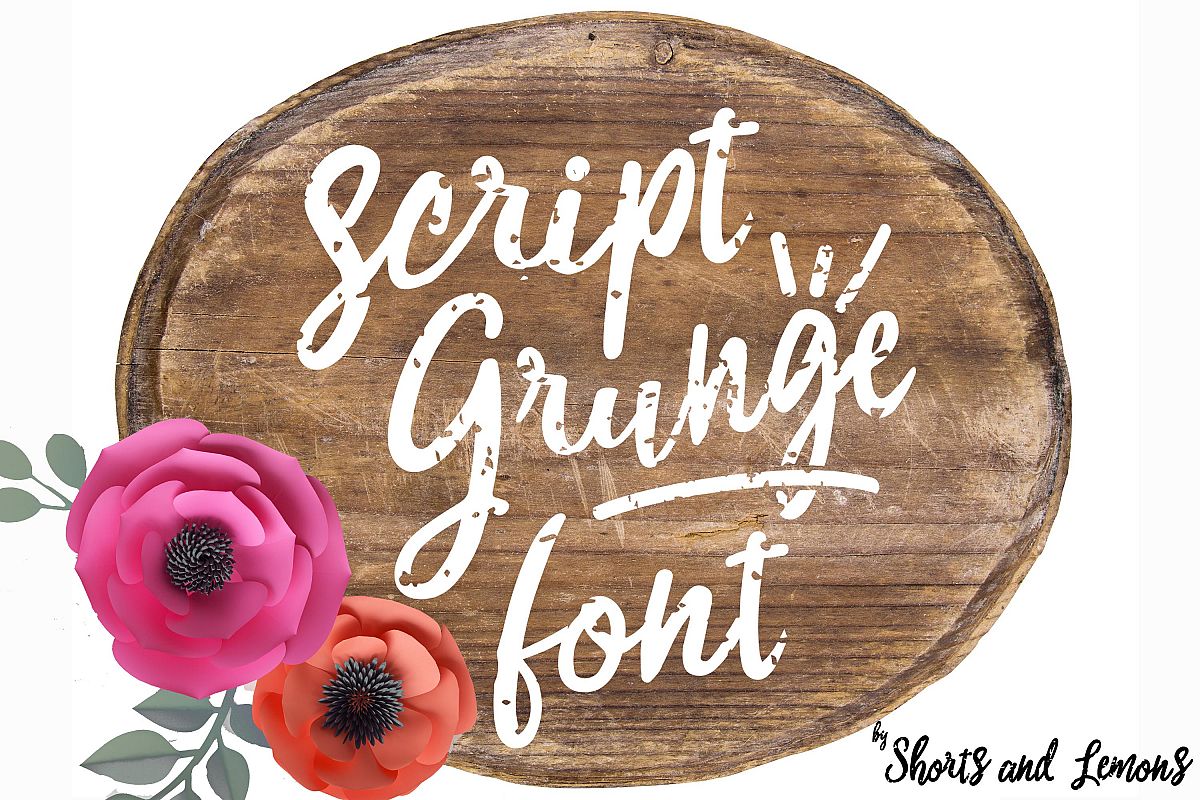
Script Grunge Font is a font that can be used to make a huge statement!!!
Includes numbers, caps, ligatures and punctuation
One of the things that is very different about this font is that is was originally designed to be cut with a machine like Cricut.  Then my customers let me know that it also looks fantastic in print!!
This is probably the only grunge font that you will find that is easy to weed when it is cut because of the way it is made. If you use a lint roller it is fast and very easy!!